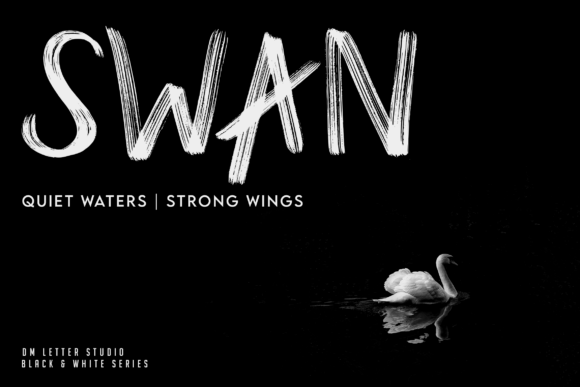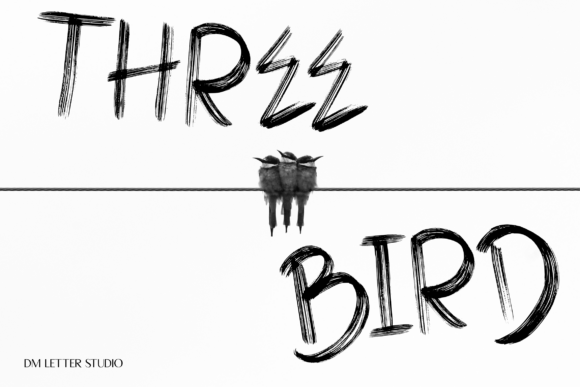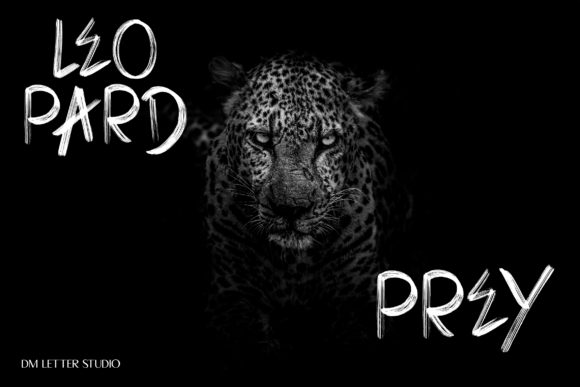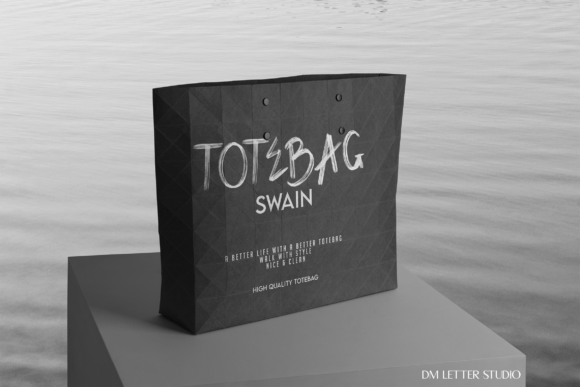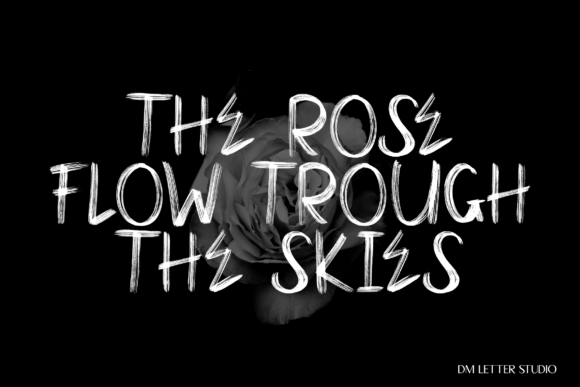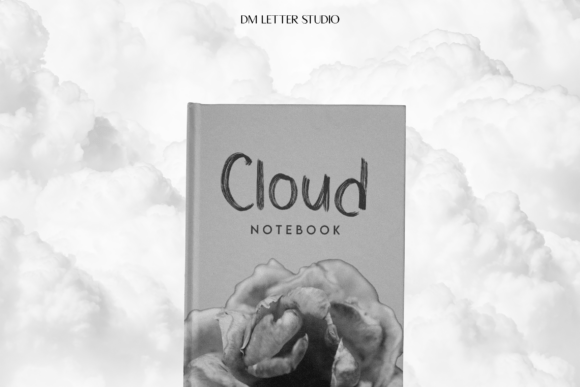
The Perfect Dose of Edginess for Your Designs
Remember that moment when you’re brainstorming a new campaign and the ideas just aren’t flowing? You’re stuck staring at a blank screen, desperate for that spark that’ll set your design ablaze. For designers, it’s those eureka moments that make all the difference. And what if I told you that there’s a font that can give you that same rush of creativity, every time you use it?
Enter the Broken Ink Font, a bold display brush font that’s bursting with energy and attitude. This font is not just for adding some flair to your designs – it’s a game-changer. With its rough, hand-painted strokes, the Broken Ink Font brings instant motion to your headlines, logos, and promo designs, making your message land fast and strong. Whether you’re working on streetwear branding, posters, or social posts, this font is a valuable addition to any designer’s toolkit.
Broken Ink Font Key Features
- Font Family: Broken Ink is a unique, hand-drawn font family designed to evoke a sense of imperfection and charm.
- Size: The font family includes a range of weights, from Thin (100) to Black (900), allowing for a high degree of customization in typography.
- Resolution: Optimized for high-resolution displays, making it suitable for use in digital design, such as website headers, logos, and social media graphics.
- Unique Characteristics: Broken Ink features a distinctive, hand-crafted look with subtle imperfections, adding a touch of personality to any design project.
Broken Ink Font Review
Broken Ink Font, created by Font Diner, has a unique, hand-drawn feel that can add character to various design projects. ✨ The font’s ink-stained aesthetic works well for creative, artistic, and vintage-themed designs.
Some of the font’s features that stand out include:
- Irregular, hand-crafted texture
- Delicate, artistic feel
- Multiple styles and weights available
- Works well for headings and body text
- May be difficult to read at very small sizes
- May not be suitable for formal, professional designs
- Some characters may not be perfectly formed
- Not as versatile as other fonts in terms of use cases
Overall, Broken Ink Font is a unique and creative option that can add a touch of personality to your designs. It works well for artistic and vintage-themed projects, but may not be the best choice for more formal or professional designs. ⚠️ With some careful consideration and use, however, it can be a valuable addition to your font library.
Broken Ink Font is ideal for creating unique, handwritten-style text in designs. Use it for:
– Handwritten-style quotes or captions
– Creative headings or titles
– Personalized stationery or invitations
For optimal results, use the font in combination with bold, contrasting colors to create a visually striking design.